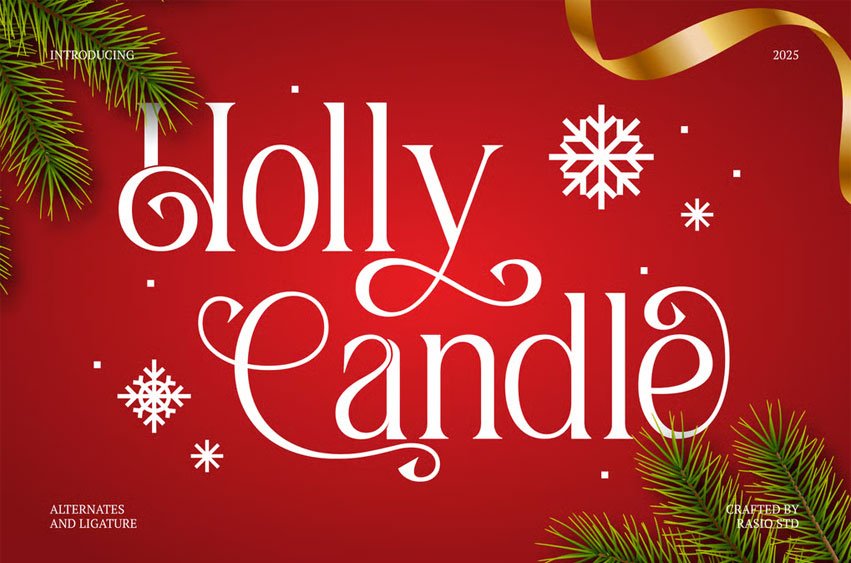
Holly Candle Christmas Font
Holly Candle Christmas Font is a refined, elegant, and beautifully festive serif typeface created to elevate holiday-themed designs with a touch of sophistication and timeless charm. Every letterform is crafted with care featuring graceful high‑contrast strokes, delicate curves, and a harmonious rhythm that reflects classic typography while bringing a warm seasonal spirit. The typeface includes a wide range of thoughtfully designed swash alternates and decorative ligatures, allowing designers to add expressive flourishes and create uniquely styled compositions with ease.
Relevance and Use Cases is perfect for Christmas cards, winter celebrations, gift packaging, product branding, boutique logos, greeting prints, social media graphics, seasonal advertisements, cozy invitations, and editorial spreads that require a refined holiday aesthetic. Its ornamental nature adds personality without sacrificing balance, making it a perfect choice for designers who want their work to radiate warmth, tradition, and festive sophistication.
Main Features:
• Uppercase & Lowercase
• Numeral & Punctuations
• Multilingual Support
• Ligatures & Alternate